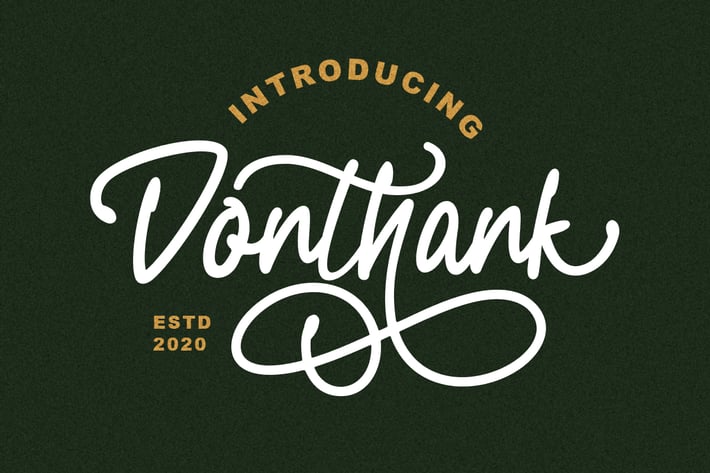
Donthank - Script Typeface
Introducing, Donthank Script Typeface. Donthank is a script typeface with swash.This font is perfect for quotes, branding, packaging, etc.
+ Including number and symbol.
+ Support Multi Language
+ Ligatures
+ Alternates